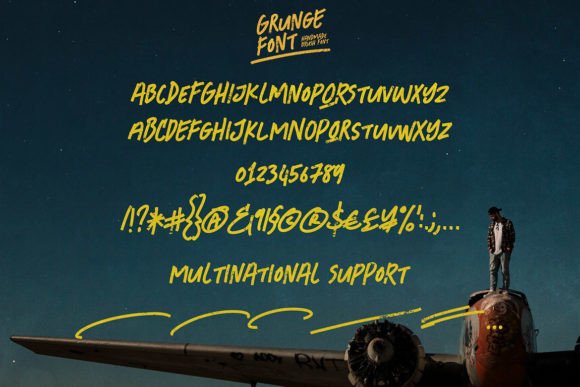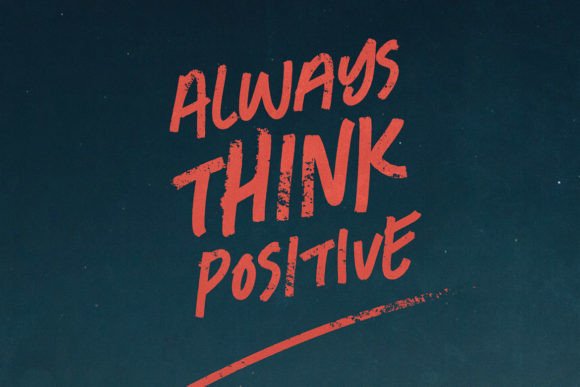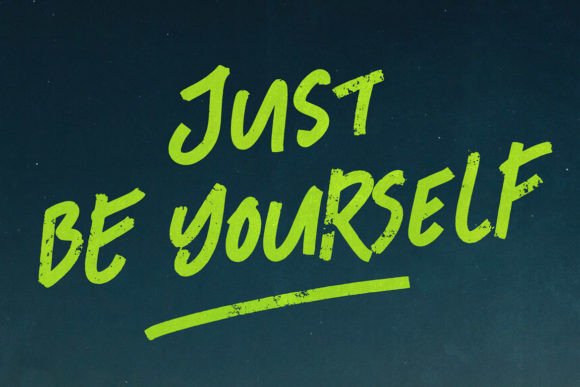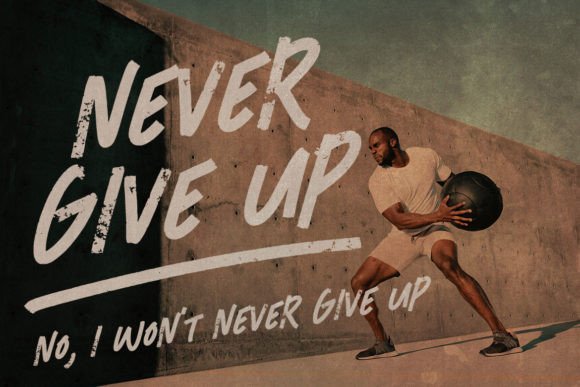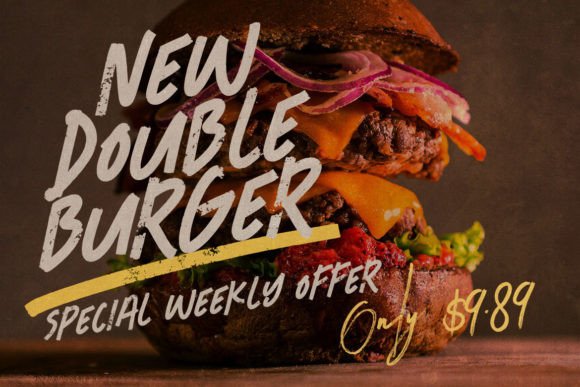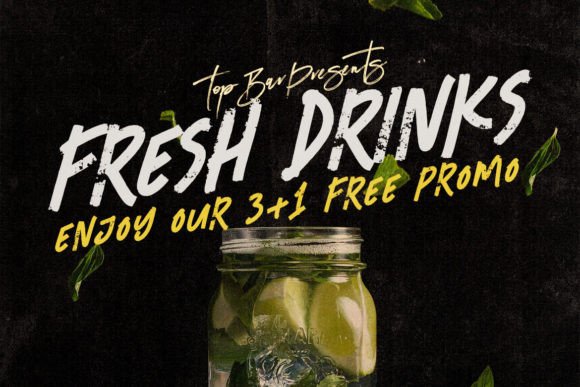
Grunge Font: Add a Funky Touch to Your Art Projects
Grunge is a funky and cool brush display font perfect for all your art projects. It will add a fresh and unique touch to any design idea you might have! In this article, we’ll dive into the world of Grunge Font, exploring its features, benefits, and uses. Whether you’re a designer, crafter, or artist, you’ll learn how to make the most of this versatile font.
What is Grunge Font?
Grunge Font is a type of brush display font characterized by its rough, textured, and distressed look. It’s inspired by the grunge movement of the 1990s, which celebrated a DIY aesthetic and a rejection of mainstream culture. The font’s irregularities and imperfections give it a unique, hand-crafted feel that’s perfect for adding a touch of personality to your designs.
Features of Grunge Font
- Unique and eye-catching: Grunge Font is sure to grab attention with its bold, distressed look.
- Versatile: Use it for a wide range of projects, from posters and flyers to social media graphics and craft projects.
- Customizable: Experiment with different colors, textures, and effects to make the font your own.
Benefits of Using Grunge Font
So why choose Grunge Font for your next project? Here are just a few benefits:
- Adds a touch of personality: Grunge Font helps your designs stand out from the crowd and adds a unique touch.
- Perfect for creative projects: Whether you’re working on a art project, craft, or DIY tutorial, Grunge Font is a great choice.
- Great for headlines and titles: The font’s bold, attention-grabbing style makes it perfect for headlines, titles, and other text elements.
- Easy to pair with other fonts: Grunge Font works well with a wide range of fonts, making it easy to create visually appealing combinations.
Uses for Grunge Font
Grunge Font is a versatile font that can be used for a wide range of projects, including:
- Posters and flyers: Add a bold, eye-catching touch to your promotional materials.
- Social media graphics: Use Grunge Font to create engaging, shareable graphics for social media.
- Craft projects: Add a personal touch to your craft projects, such as handmade cards, gift tags, and scrapbook pages.
- Art projects: Experiment with Grunge Font in your art projects, such as mixed media collages, illustrations, and paintings.
Tips for Using Grunge Font
Here are a few tips for getting the most out of Grunge Font:
- Experiment with colors: Try pairing Grunge Font with different colors and textures to create unique effects.
- Use it sparingly: Grunge Font is bold and attention-grabbing, so use it sparingly to avoid overwhelming your design.
- Pair it with other fonts: Combine Grunge Font with other fonts to create visually appealing combinations.
- Have fun: Don’t be afraid to experiment and try new things with Grunge Font!
Grunge Font is a funky and cool brush display font that’s perfect for adding a fresh and unique touch to your art projects. With its bold, distressed look and versatile uses, it’s a great choice for designers, crafters, and artists. Whether you’re working on a poster, social media graphic, or craft project, Grunge Font is sure to add a touch of personality and style. So why not give it a try and see what amazing creations you can come up with?